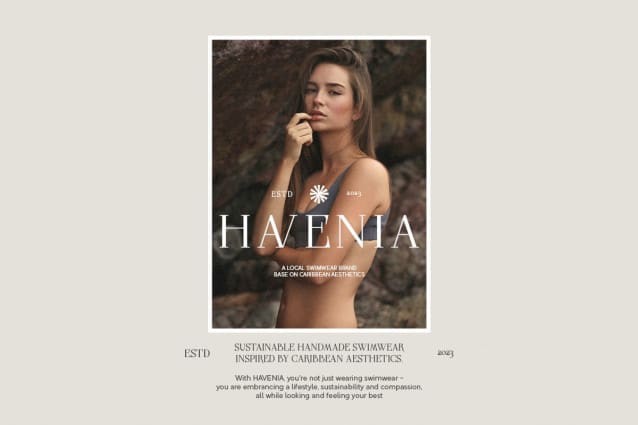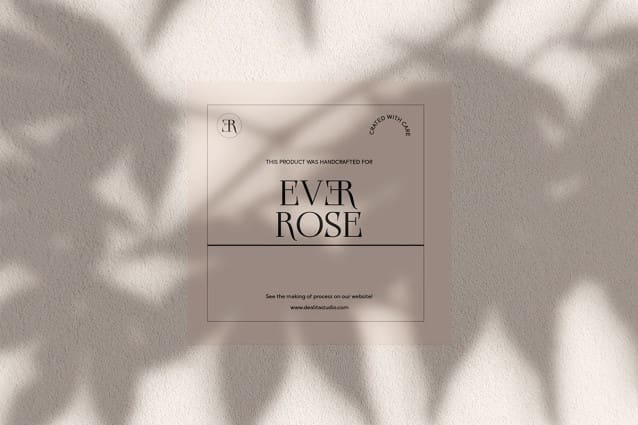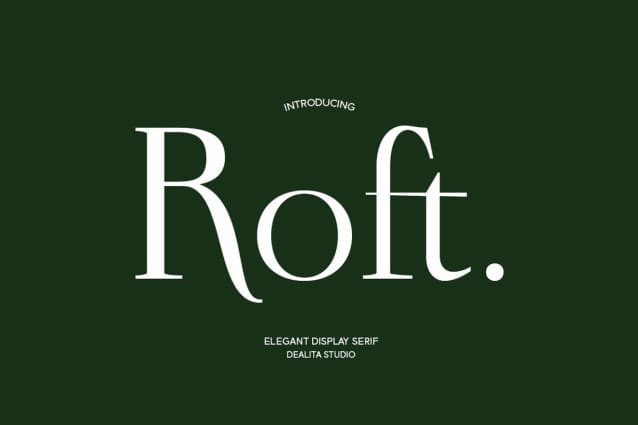
Roft Font
Roft Font is a sleek, contemporary serif font that blends clean geometry with subtle elegance. Designed for refined visual identities, its balanced contrast and timeless structure bring calm authority to any project — perfect for brands that value sophistication over spectacle.